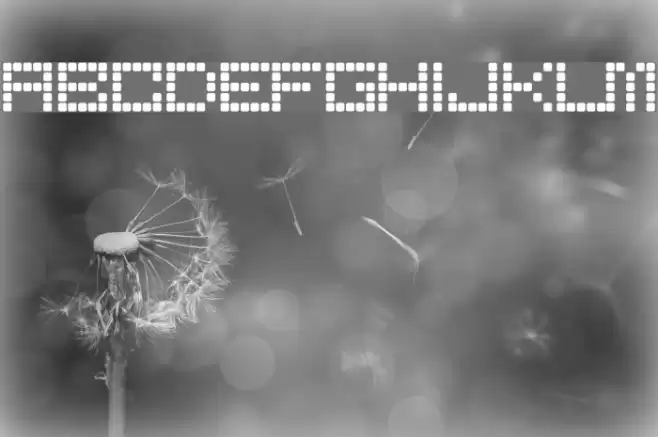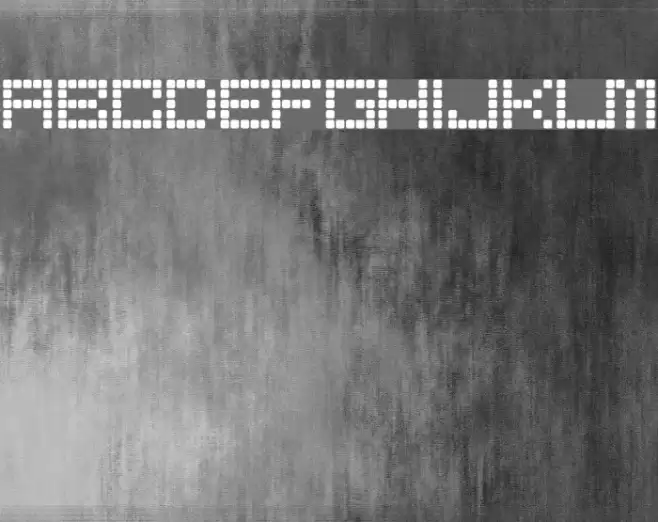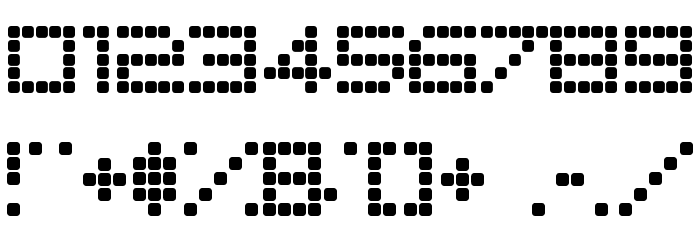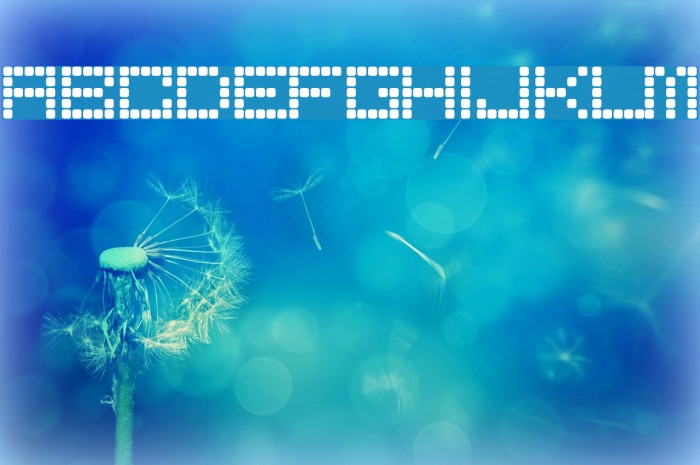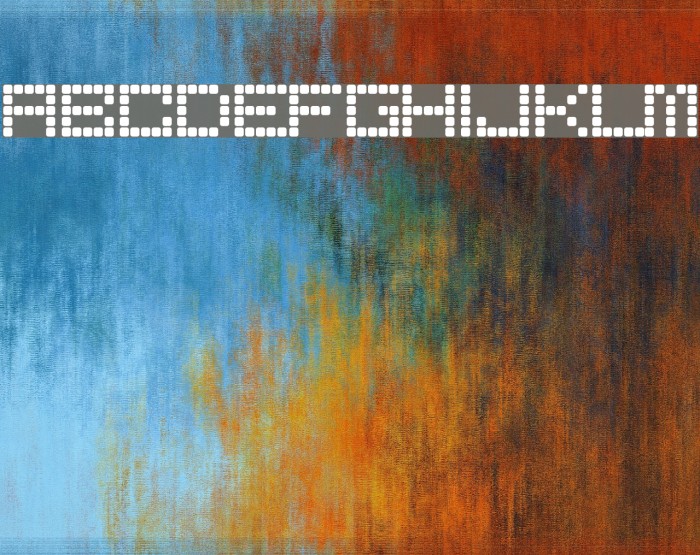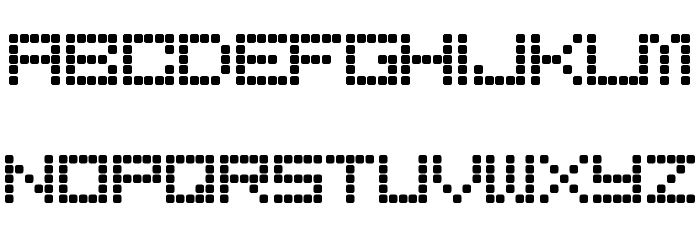
Bored-Regular Font
Bored-Regular Description
This font is a unique and modern design composed entirely of small, evenly spaced dots that form each character. The geometric arrangement gives it a digital and futuristic appearance, reminiscent of LED displays or pixel art. Each letter and number is crafted with precision, maintaining uniformity and clarity despite the unconventional style. The font is highly legible, with each character distinctly recognizable, making it suitable for creative and tech-oriented projects. Its playful yet structured design can add a dynamic and innovative touch to various visual communications.
A modern, dot-based font with a digital, futuristic look from Uncategorized fonts.
- Proposed Projects: Ideal for digital displays, tech branding, modern art projects, and creative advertising.